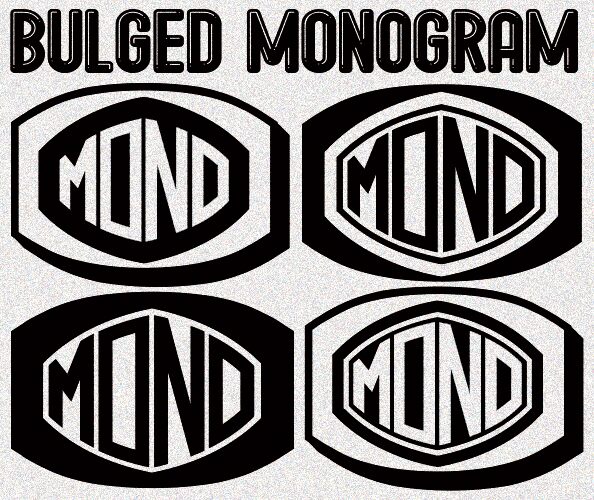
Bulged Monogram Flat Regular
With its unique and eye-catching design, Bulged Monogram Flat is the perfect font for creating stunning logos, titles, and headlines. Designed by Vladimir Nikolic, this decorative monogram typeface features a semi-light weight that adds a touch of elegance to any project. Its clean lines and contemporary style make it suitable for a wide range of projects such as branding materials, packaging designs, web graphics, and much more. The Bulged Monogram Flat font family offers versatility with its varying weights including semi-bold and bold widths to suit any creative endeavor. So if you're looking to add some personality and sophistication to your designs, give Bulged Monogram Flat a try!